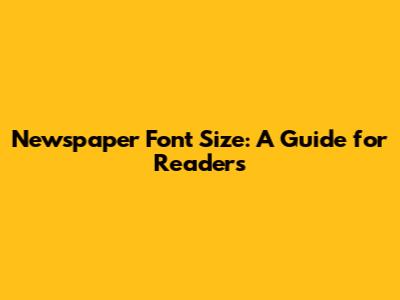
Hey everyone! Ever found yourself squinting at a newspaper, trying to decipher the tiny print? You're not alone, guys. Newspaper font size is a topic that affects pretty much everyone who still enjoys a good old-fashioned paper. It’s not just about personal preference; it’s about accessibility, readability, and even the overall design choices made by publishers. In this article, we’re going to dive deep into why font size matters so much in newspapers, what the common sizes are, and what factors influence these decisions. So, grab your reading glasses, and let’s get started!
Why Newspaper Font Size Matters
So, why all the fuss about newspaper font size, right? Well, think about it. Newspapers are meant to be read. And if the text is too small, people just won't read it. Readability is king when it comes to any printed material, but it's especially crucial for newspapers. They’re often read in less-than-ideal conditions – think morning commutes on a shaky bus, or while sipping coffee at the kitchen table with imperfect lighting. A font that’s too small becomes a barrier, leading to frustration and, ultimately, readers putting the paper down. Beyond just making it easier to see, font size also impacts the reading speed and comprehension. Larger fonts generally allow for quicker scanning and easier absorption of information, which is pretty important when you’re trying to catch up on the day's news. It also plays a huge role in accessibility. Older readers, or those with visual impairments, rely on larger, clear fonts to access the information they need. Publishers have a responsibility to make their content accessible to as wide an audience as possible, and font choice is a massive part of that. It’s not just about cramming more words onto a page; it’s about ensuring those words can actually be read and understood. Think about the design aspect, too. Font size, along with font style and layout, contributes to the overall aesthetic and feel of the newspaper. A well-chosen font size can make a newspaper feel sophisticated and professional, while a poorly chosen one can make it look cluttered and amateurish. Ultimately, getting the newspaper font size right is a delicate balancing act between fitting in enough content, ensuring readability for everyone, and maintaining an appealing visual design.
Common Newspaper Font Sizes
When we talk about newspaper font size, what are we actually talking about? Generally, newspapers use font sizes that fall within a specific range, typically between 8 and 12 points. For body text, which makes up the bulk of the articles, you'll often see sizes like 8.5, 9, or 9.5 points. Headlines and subheadings, on the other hand, are much larger, often ranging from 14 points all the way up to 72 points or more, depending on their importance and placement. For example, the main headline on the front page might be gigantic, while a smaller sub-headline for a local story could be more modest. It's important to remember that 'point' is a unit of measurement in typography. One point is equal to 1/72 of an inch. So, a 9-point font might seem small, but it's a standard size for a reason. Some newspapers, particularly those aiming for a more accessible experience or targeting an older demographic, might opt for slightly larger body text, perhaps 10 or 10.5 points. On the flip side, some tabloids or papers with a very dense layout might push the boundaries and go slightly smaller, though this is becoming less common due to readability concerns. It’s also worth noting that the type of font itself plays a role. A serif font, like the Times New Roman you might be familiar with, often appears larger and more readable at smaller sizes than a sans-serif font (which lacks the little 'feet' on the letters). So, a 9-point serif font might feel like a 10-point sans-serif font to your eyes. Publishers consider these nuances when selecting their fonts and sizes. The goal is always to strike a balance between fitting a good amount of information on the page and ensuring that every single reader can comfortably digest the news. So, next time you pick up a paper, take a moment to notice the font sizes – you’ll start to see a pattern, and understand the thought that goes into making those articles legible for millions of readers.
Factors Influencing Newspaper Font Size Choices
Alright guys, let's get into the nitty-gritty of why newspapers choose the newspaper font size they do. It’s not just pulled out of a hat, believe me! Several key factors come into play. Firstly, and arguably most importantly, is readability. This is the big one. Publishers want their content to be easily consumed by the widest possible audience. This means considering people of all ages, and especially older demographics who may have declining eyesight. So, trends lean towards ensuring fonts are large enough to be read comfortably without strain. Then there's the target audience. Who are they trying to reach? A newspaper aimed at a younger, tech-savvy audience might experiment more, but the core audience for traditional newspapers often includes a significant number of older readers. Printing technology and paper quality also play a surprisingly big role. Older printing presses and lower-quality paper can sometimes make smaller fonts appear fuzzy or blurred. Using slightly larger, bolder fonts can compensate for these limitations, ensuring a crisper image. Layout and space constraints are another huge consideration. Newspapers have a finite amount of space on each page. Designers need to fit in articles, advertisements, images, and graphics. Choosing a smaller font size allows them to pack more text onto a page, which can be economically advantageous. However, this needs to be balanced against the need for readability. A common compromise is using a relatively small font size but choosing a font that is inherently very clear and open. The type of publication also matters. A daily broadsheet newspaper, aiming for serious news coverage, might opt for a more traditional, slightly larger font size to convey authority and seriousness. A tabloid, on the other hand, might use a mix of sizes, with larger, bolder fonts for sensational headlines and potentially smaller text for less critical details, aiming for a more dynamic, attention-grabbing feel. Finally, there are industry standards and historical conventions. Over the years, certain font sizes and styles have become associated with newspapers, and publishers are often reluctant to deviate too drastically from what readers expect and are accustomed to. It’s a complex mix of art, science, and economics, all working together to determine that perfect newspaper font size.
The Impact of Font Style on Readability
We've talked a lot about newspaper font size, but guys, it's not the only thing that matters for making text easy to read. The style of the font itself plays a massive role, and it’s something publishers think about a lot. You’ve probably noticed that newspapers generally stick to a few classic font types. These are often serif fonts. Think of fonts like Times New Roman, Georgia, or Garamond. What are serifs, you ask? They’re those little decorative strokes or 'feet' at the ends of the main strokes of letters. Why are they important for newspapers? Well, the theory is that these serifs help guide the reader's eye along the line of text, making it flow more smoothly and improving reading speed, especially in longer articles. They create a visual connection between letters, making the words seem to link together more naturally on the page. This is super important for dense blocks of text found in newspapers. On the other hand, you have sans-serif fonts. These are fonts without the little feet, like Arial, Helvetica, or Verdana. While great for headlines, captions, and digital screens where clarity at various sizes is key, they’ve traditionally been seen as less ideal for the main body text of a newspaper. Without the guiding strokes of serifs, the text can sometimes feel a bit more disjointed, and reading large volumes can be more tiring for some people. However, it's not a hard and fast rule! Some modern newspapers do use sans-serif fonts for their body text, especially if they've chosen a particularly well-designed, open sans-serif font that is very legible. The key is often the x-height of the font – that's the height of the lowercase 'x' relative to the capital letters. Fonts with a larger x-height tend to be more readable at smaller sizes because the individual letter shapes are clearer. So, even within serif or sans-serif categories, there's a huge variety. Publishers also consider letter spacing (kerning) and line spacing (leading). Even with the perfect font and size, if the letters are too cramped together or the lines of text are too close, it will be hard to read. Good typography involves carefully adjusting these elements to create comfortable, readable blocks of text. So, while newspaper font size is crucial, remember that the font style is its equally important partner in the quest for clear, accessible news delivery. It's all about creating a comfortable reading experience for you, the reader!
The Future of Newspaper Font Size
So, what’s next for newspaper font size, guys? It’s an interesting question, especially when you consider how much the world has changed. We’re living in a digital age, right? Most people now get their news online, on screens of all shapes and sizes – phones, tablets, laptops, and good old desktop monitors. This has had a huge impact on how we think about typography. For online news, the font size is often adjustable by the user. You can zoom in, change settings, or use browser extensions to make the text bigger. This means online publishers have a bit more freedom; they don't have to stick to the strict readability rules of print quite as rigidly, although good practice still dictates legible sizes. However, for the physical newspaper, the debate continues. While some papers might be shrinking their print runs or focusing more on digital, there’s still a significant readership that prefers and relies on the printed product. For these readers, newspaper font size remains a critical factor. We might see a continued trend towards slightly larger, more legible fonts, perhaps incorporating more sans-serif options that have been specifically designed for clear print reading. There's also a push for greater personalization, even in print, though that’s a logistical nightmare! More likely, we’ll see publishers experimenting with different font combinations and sizes across various sections of the paper to cater to different reading needs. For example, the main news section might stick to a tried-and-true size and style, while feature sections or opinion pieces might use slightly different typographic treatments. The rise of digital and the need to attract younger readers might also encourage print publications to adopt more modern, clean, and perhaps slightly larger font choices that feel more contemporary. But fundamentally, the core challenge remains the same: to deliver information clearly and effectively to as many people as possible. Whether it’s on paper or on a screen, good typography – and that includes the right newspaper font size – will always be key. It's all about ensuring that the news is accessible, engaging, and a pleasure to read, no matter how you consume it. So, while the medium might evolve, the importance of a well-considered newspaper font size isn't going anywhere. It's a classic for a reason!